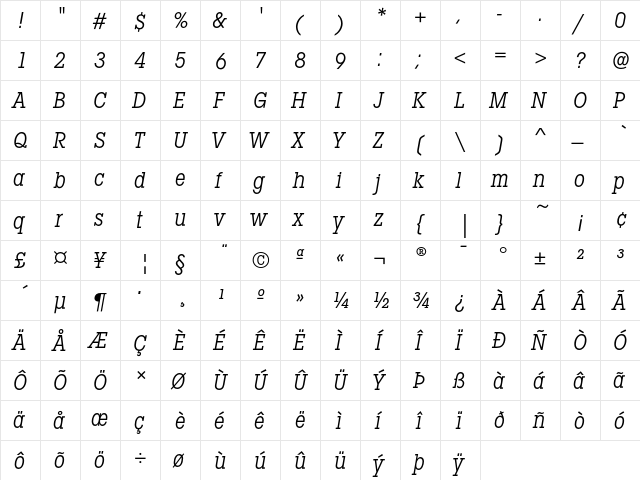
LubalinGraphEF BookCondObl
Design Context for LubalinGraphEF Typeface
LubalinGraphEF is a composed and adaptable typeface that performs quietly and consistently across a wide range of design contexts. Its narrow stance lets it pack a punch even in space-constrained designs.